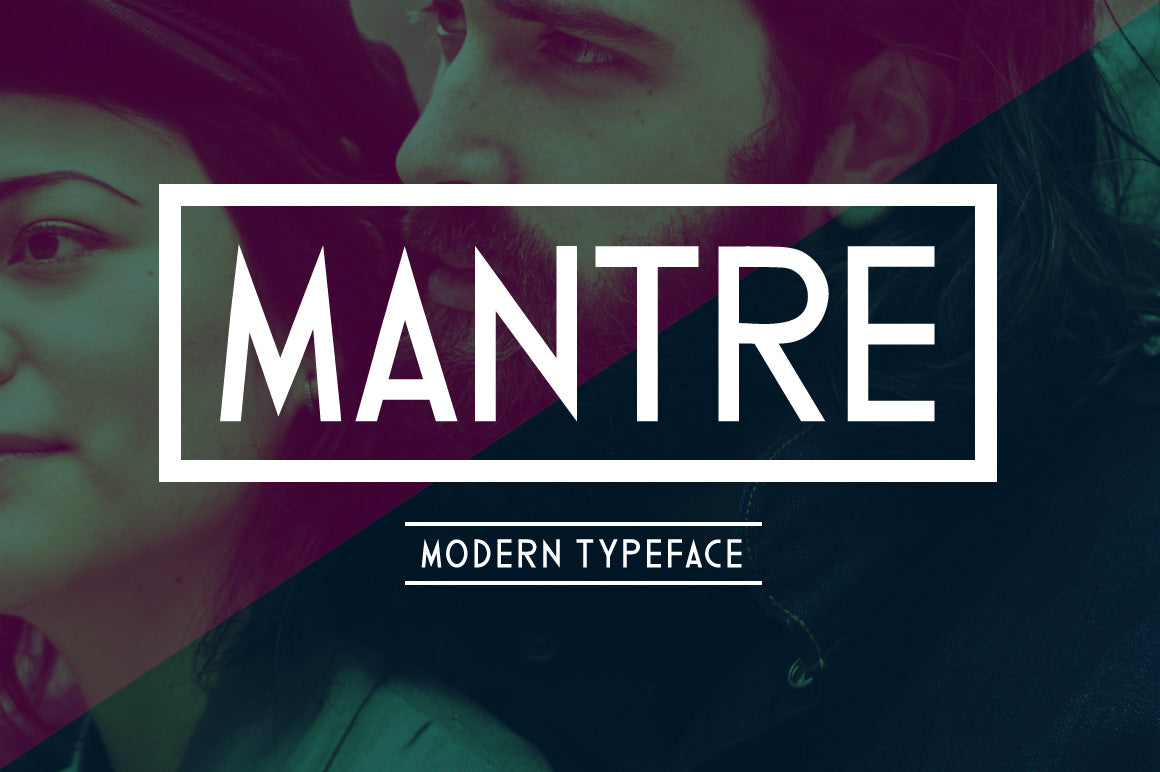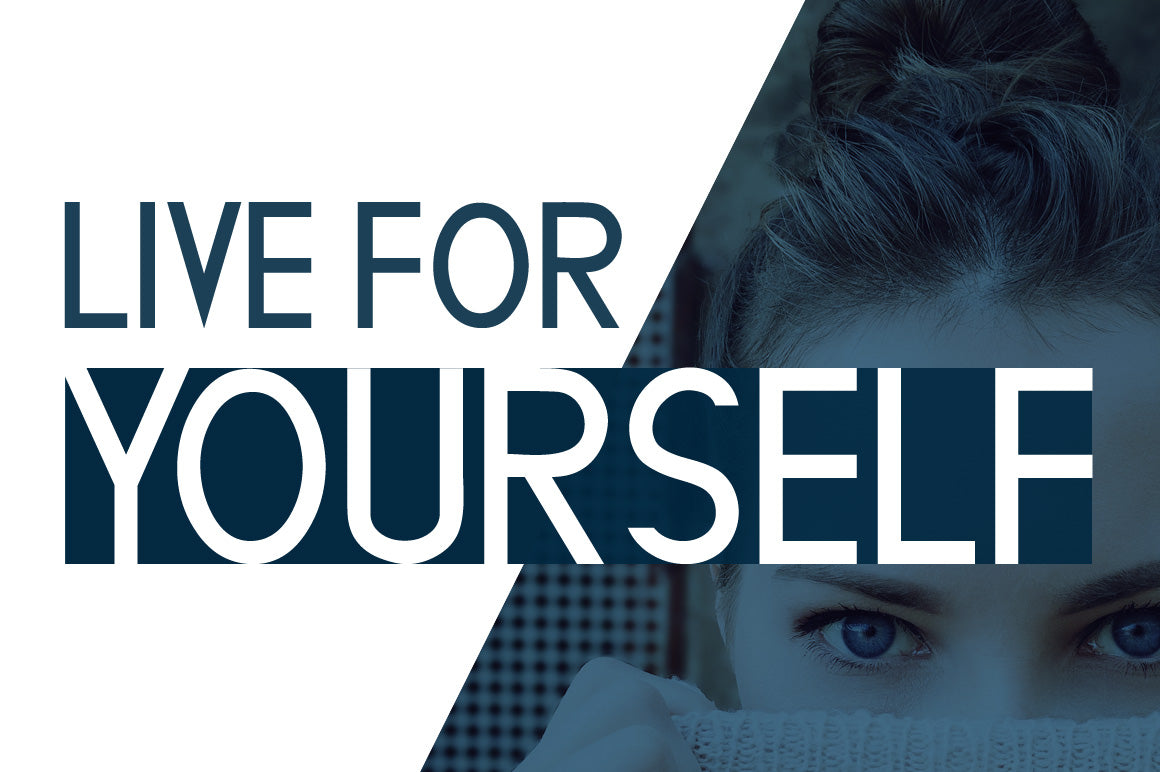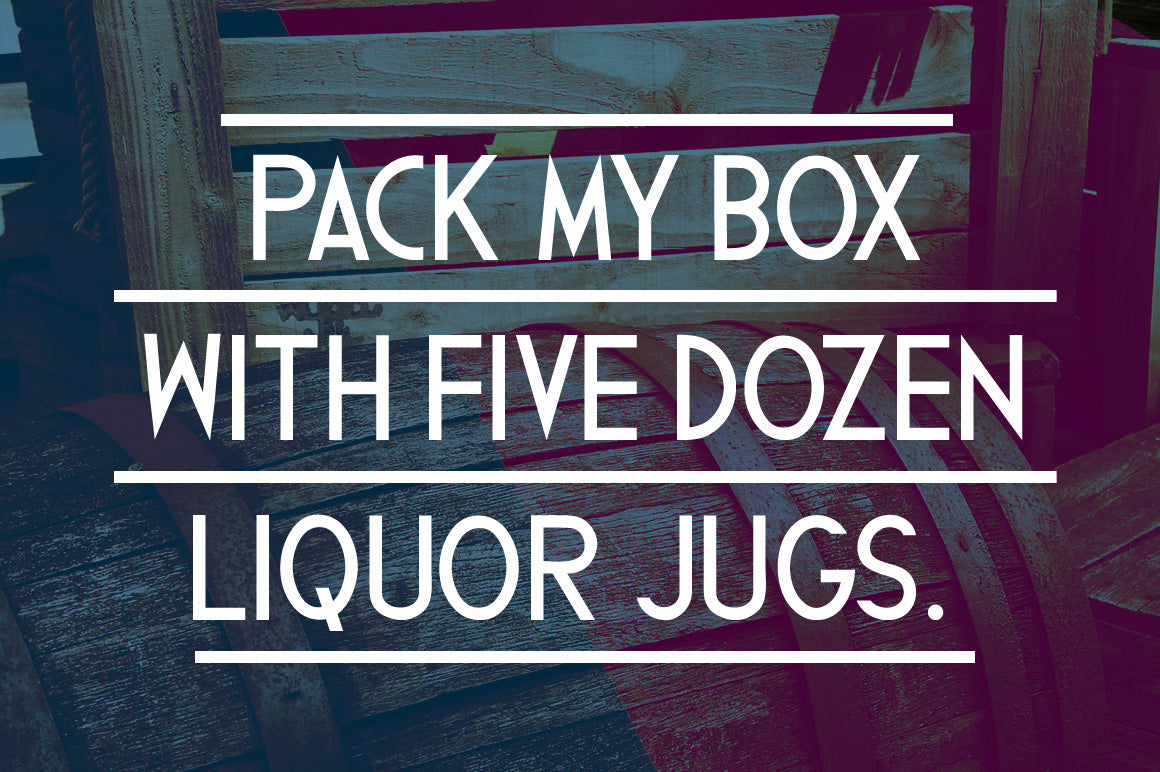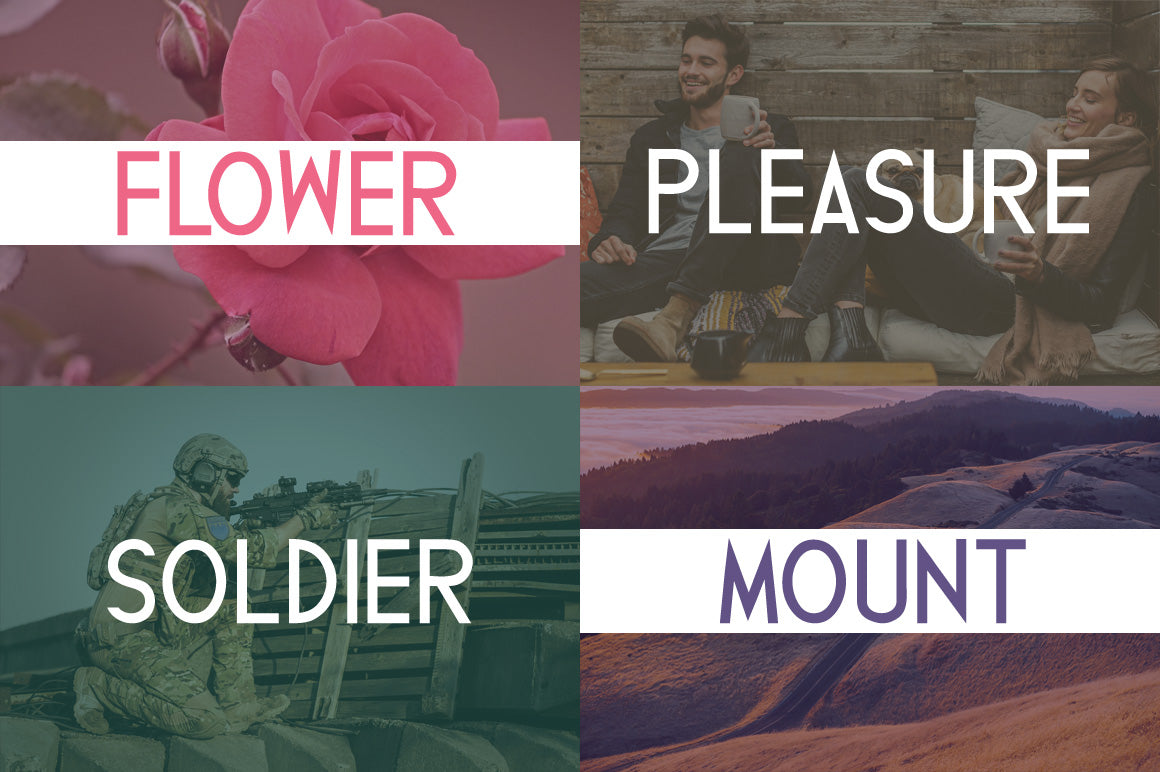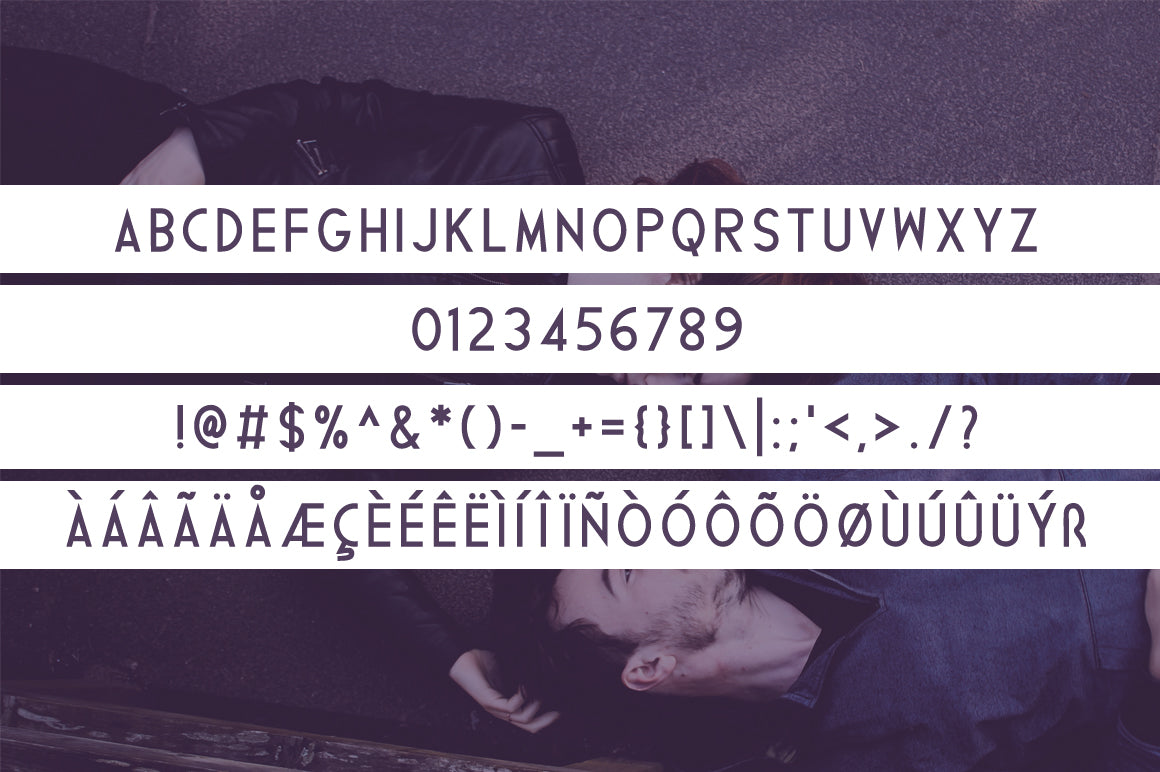
Mantre is a cool and modern sans serif font. Angular and well-weighted, Mantre can be used in a large array of styles and design options.
Its sharp geometry and balanced proportions make it perfect for branding, editorial layouts, web design, and display use. Whether you're aiming for a minimal, high-tech, or bold visual style, Mantre adapts effortlessly. Add Mantre, a versatile and beautiful font, to your collection and elevate your designs with clean precision and contemporary flair.